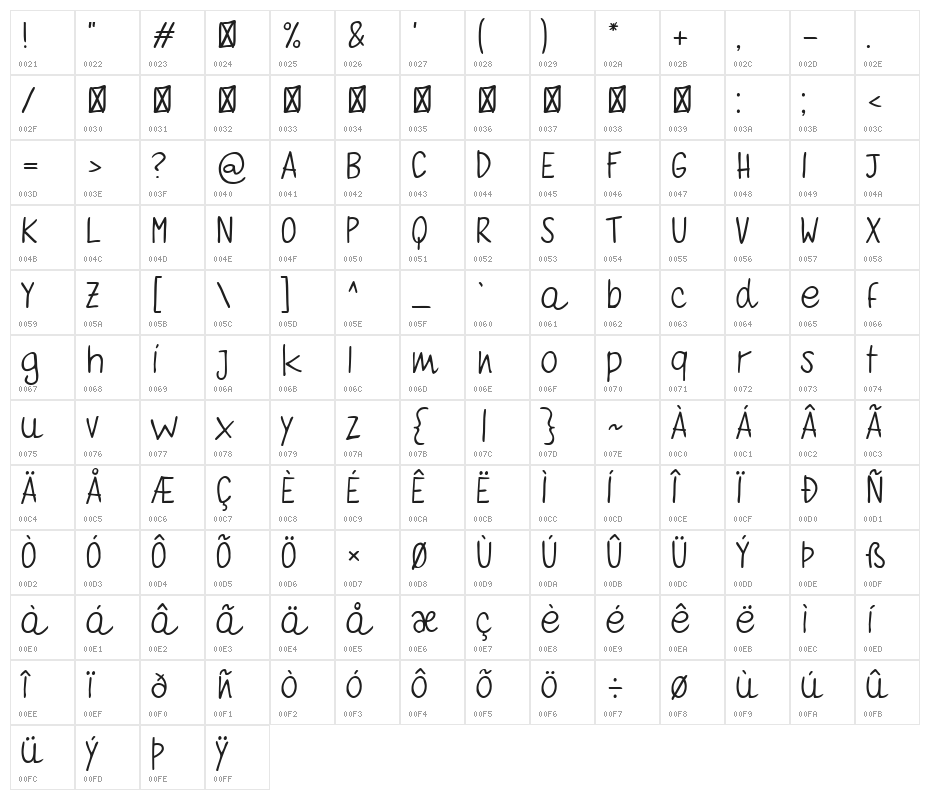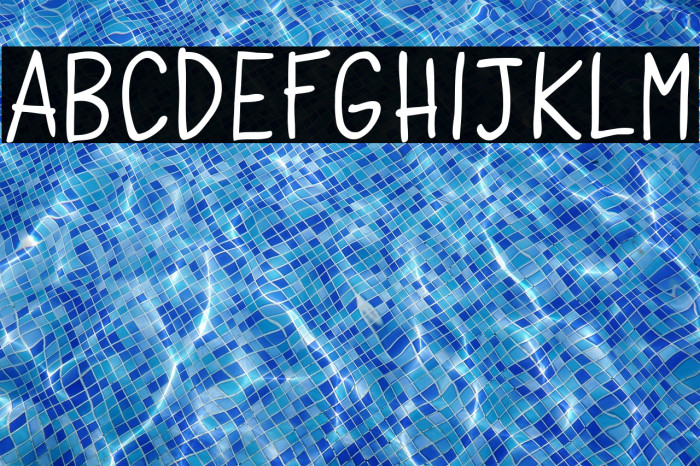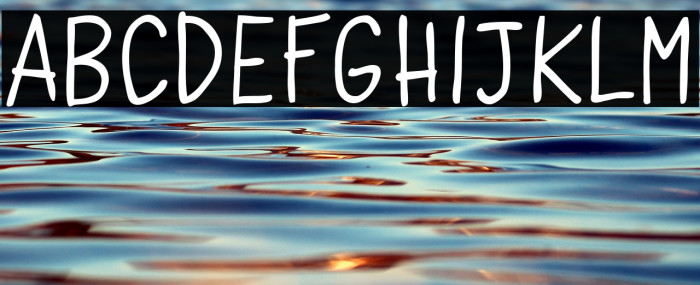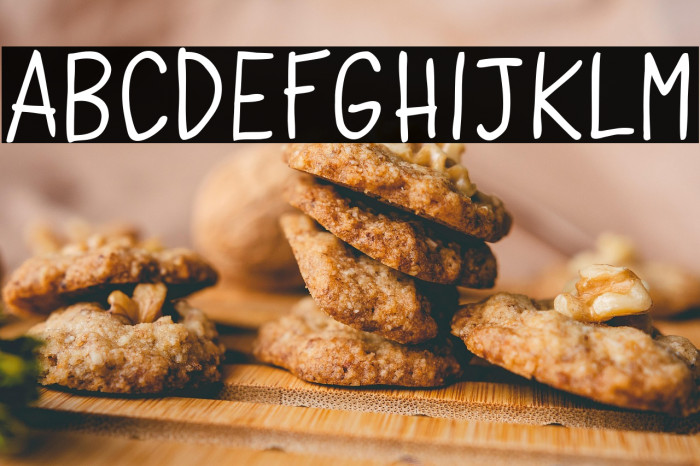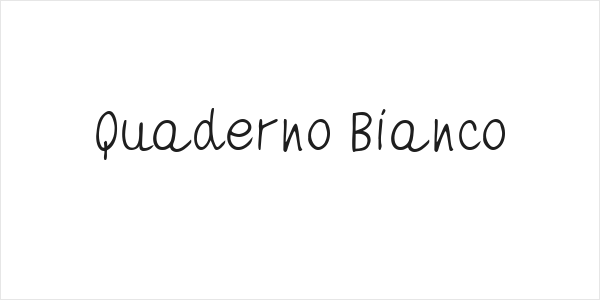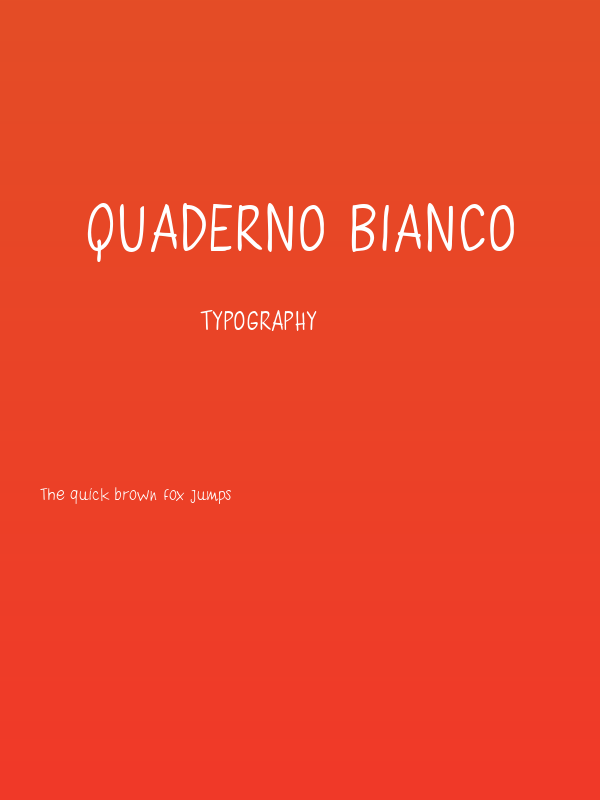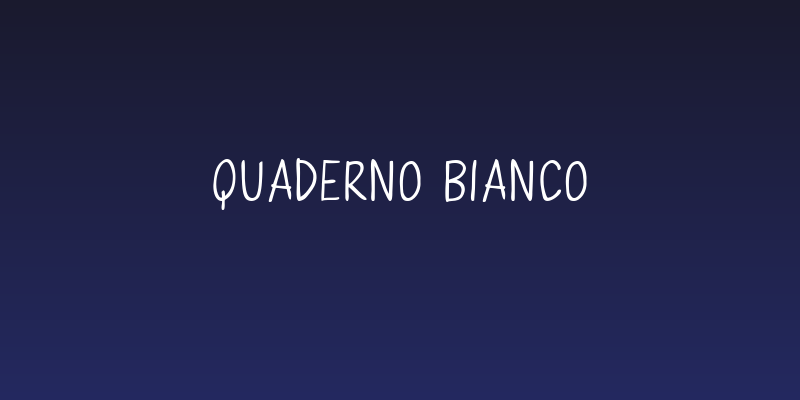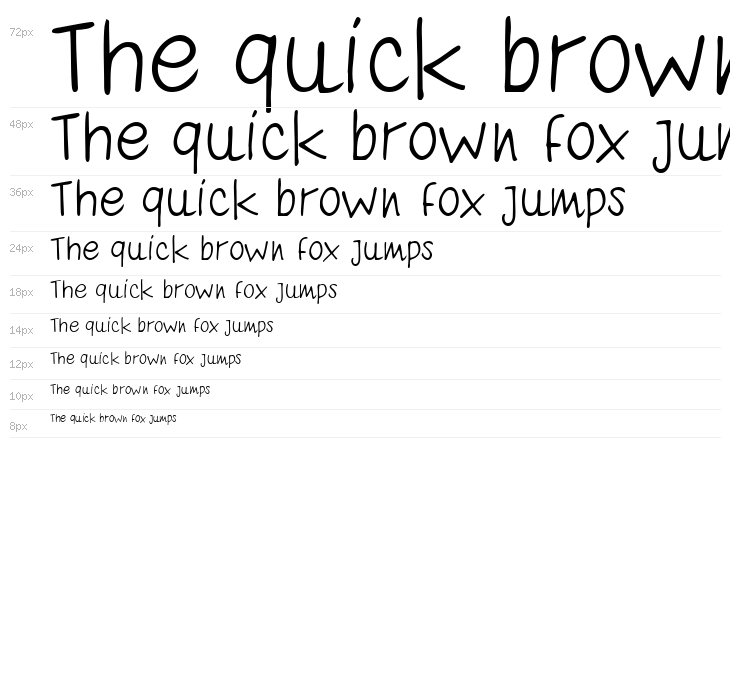
Quaderno Bianco Font
Quaderno Bianco Description
This font exudes a playful and informal handwritten style, characterized by its irregular strokes and casual appearance. The letters are slightly uneven, giving it a personal and approachable feel. The uppercase and lowercase letters maintain a consistent style, with rounded edges and a slight tilt that enhances its handwritten charm. The numerals and special characters follow the same aesthetic, ensuring uniformity across all glyphs. This font is perfect for projects that require a touch of whimsy and personality, such as children's books, greeting cards, or informal invitations.
| Proposed Projects | Ideal for children's books, greeting cards, informal invitations, and playful branding. |